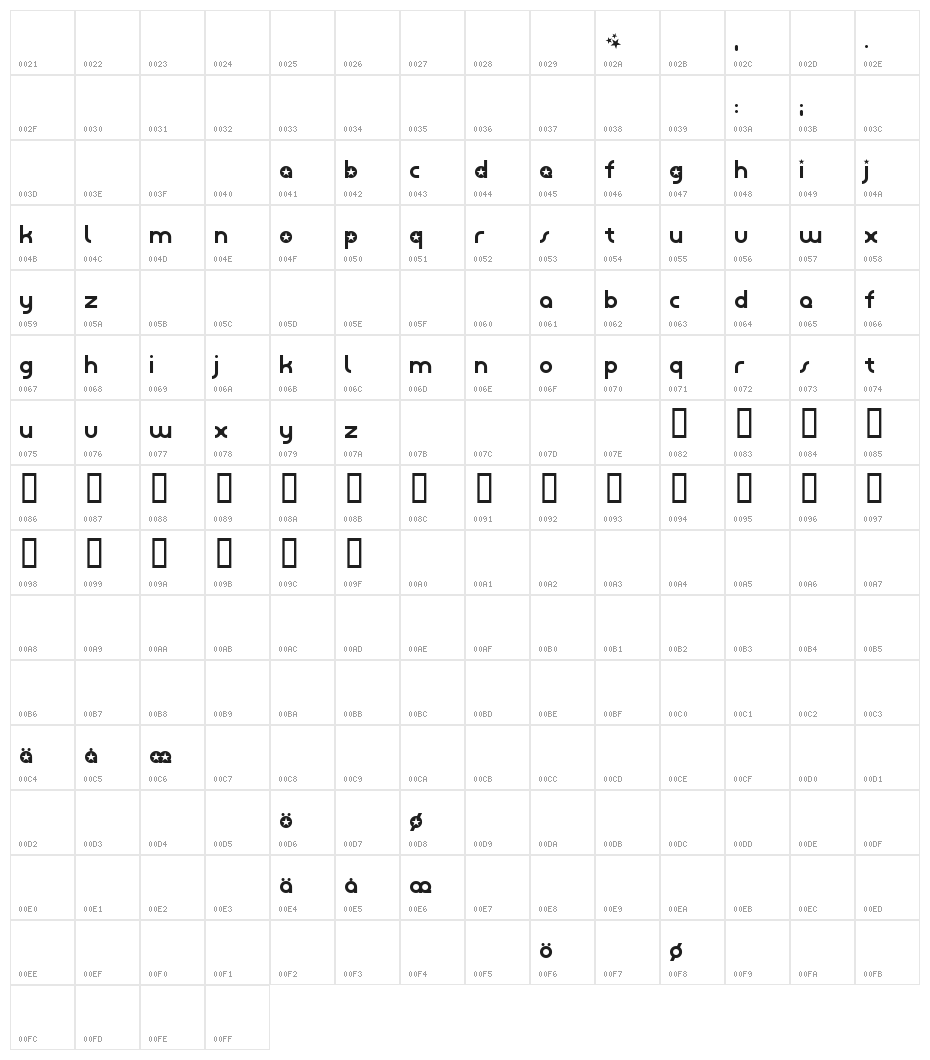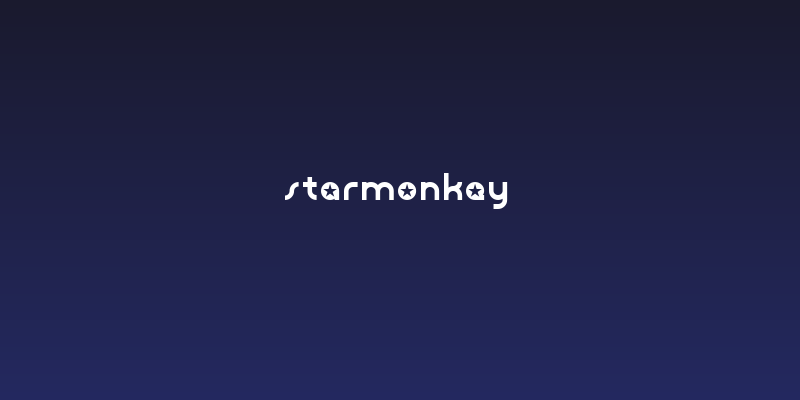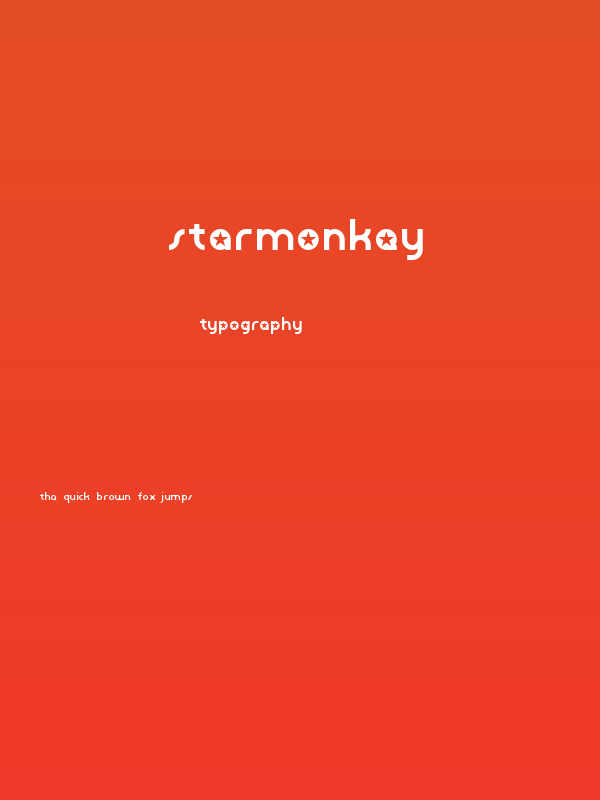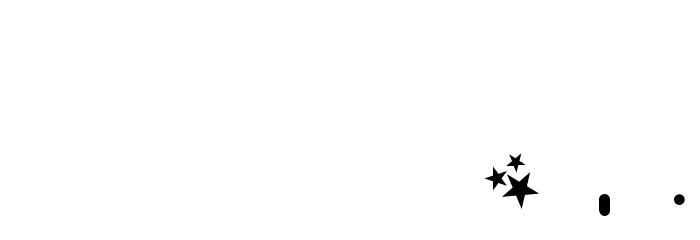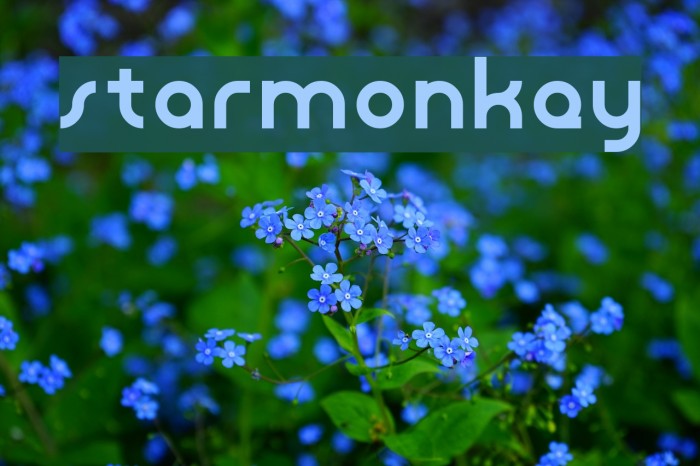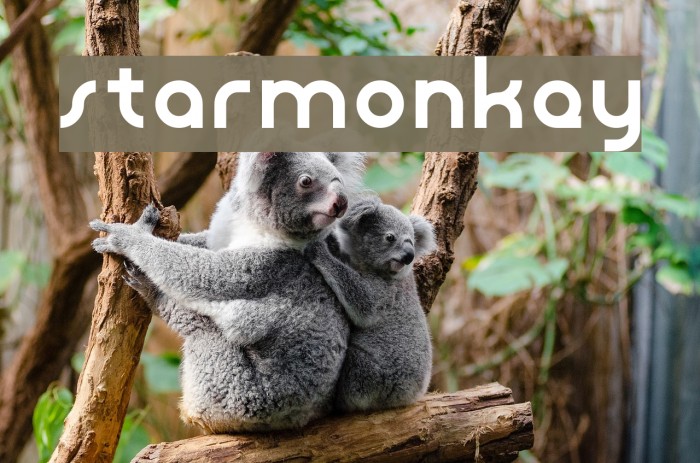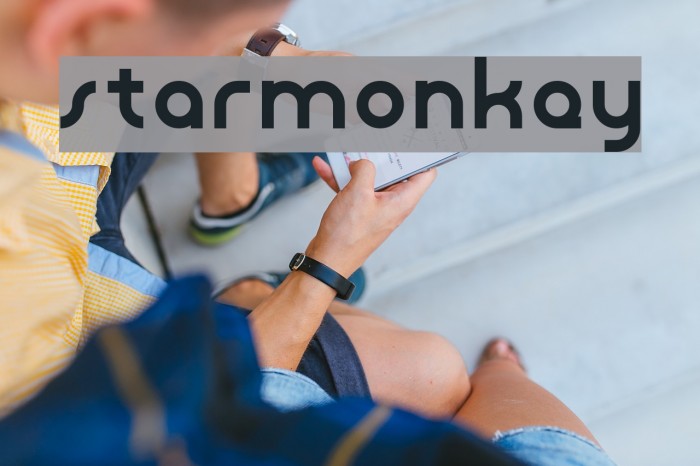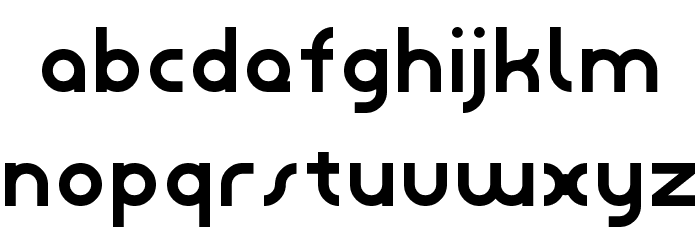
starmonkey Font
starmonkey Description
This playful and decorative font features unique star motifs integrated into the characters, creating a whimsical and eye-catching design. The lowercase letters exhibit a consistent and rounded form, with stars replacing certain elements, such as the center of the 'a', 'b', 'd', and 'g', and the dots of the 'i' and 'j'. The overall appearance is bold and modern, with a touch of fun and creativity. The font maintains a consistent weight throughout, providing a balanced and cohesive look. The spacing between characters is normal, ensuring readability while maintaining its decorative appeal.